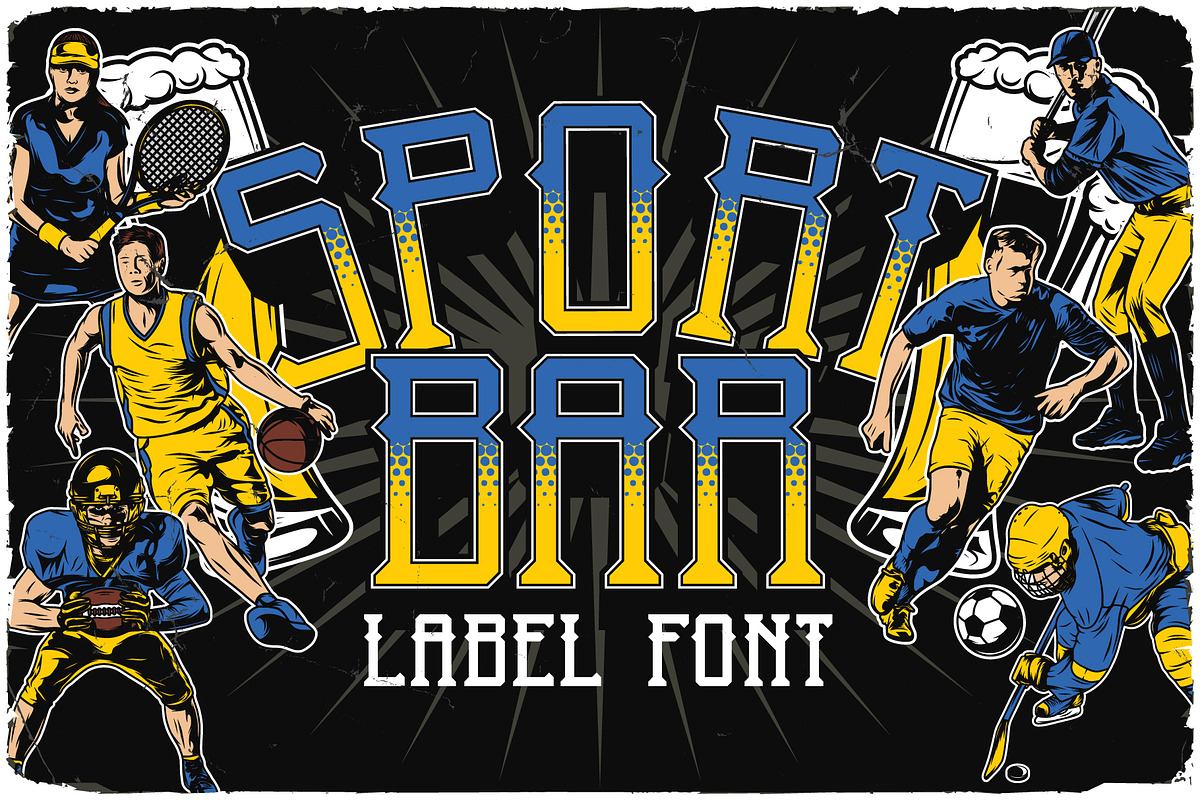
Please note that you must purchase this font for commercial use. You can download Sport Bar Font for free, strictly for personal testing purposes only. Sport Bar is a bold and dynamic display font designed with the energy and excitement of sports in mind. With strong letterforms, clean lines, and a modern athletic look, Sport Bar Font Free Download is perfect for sports team logos, event posters, sports bars, merchandise, and promotional materials related to games or athletic activities.
This font exudes confidence and strength, making it ideal for any design that needs to convey power and excitement. It includes uppercase letters, numerals, punctuation, and multilingual support for wide creative use.
Whether you're designing for a sports brand or a fitness center, Sport Bar brings boldness and athletic flair to your typography.